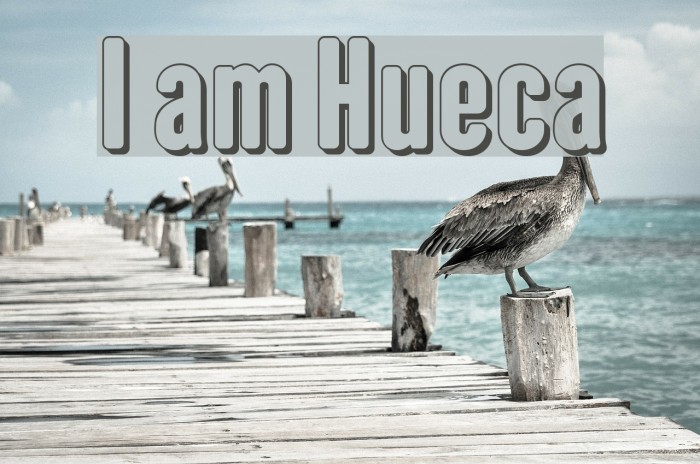
I am Hueca Font
This font features a bold, outlined style with a strong presence. The characters are uppercase and lowercase, along with numerals and a variety of special characters. The design is clean and modern, with a uniform stroke width that gives it a consistent look. The letters have a slightly condensed form, enhancing their impact and readability. The outline effect adds a layer of depth, making it suitable for eye-catching designs. The font's geometric shapes and balanced proportions make it versatile for various applications, from digital to print media.
A bold, outlined font with a modern and impactful style.
- Font: I am Hueca
- Proposed Projects: Ideal for posters, headlines, branding, and advertising where a strong visual impact is needed.